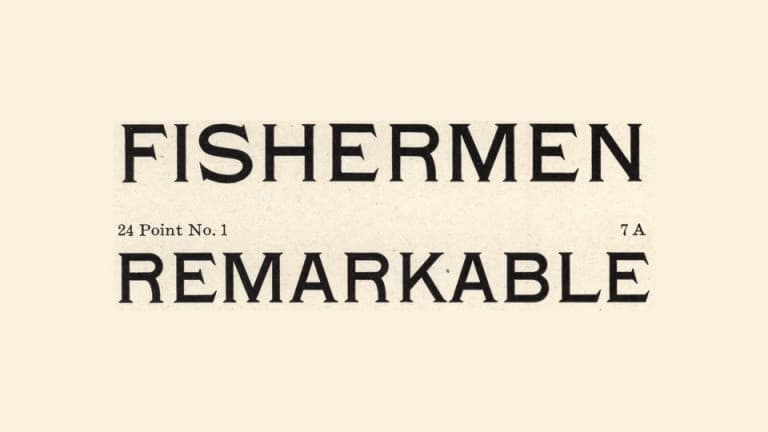
Tiffany Gothic CC Serif Font
Tiffany Gothic CC Serif Font is a serif geometric typeface inspired by the lettering found on modernist building plans. A revival of Tiffany Gothic by American Type Founders, 1901, a font whos origins likely date back to the 1880s. By 1912 ATF had changed the name to Typo Gothic, and by the mid century, the letters stopped appearing altogether. This typeface has a lot in common with its more famous relative, Copperplate Gothic, yet Tiffany shares none of the fame nor glory. In fact, until this point, there has yet to be a digital revival of Tiffany Gothic.